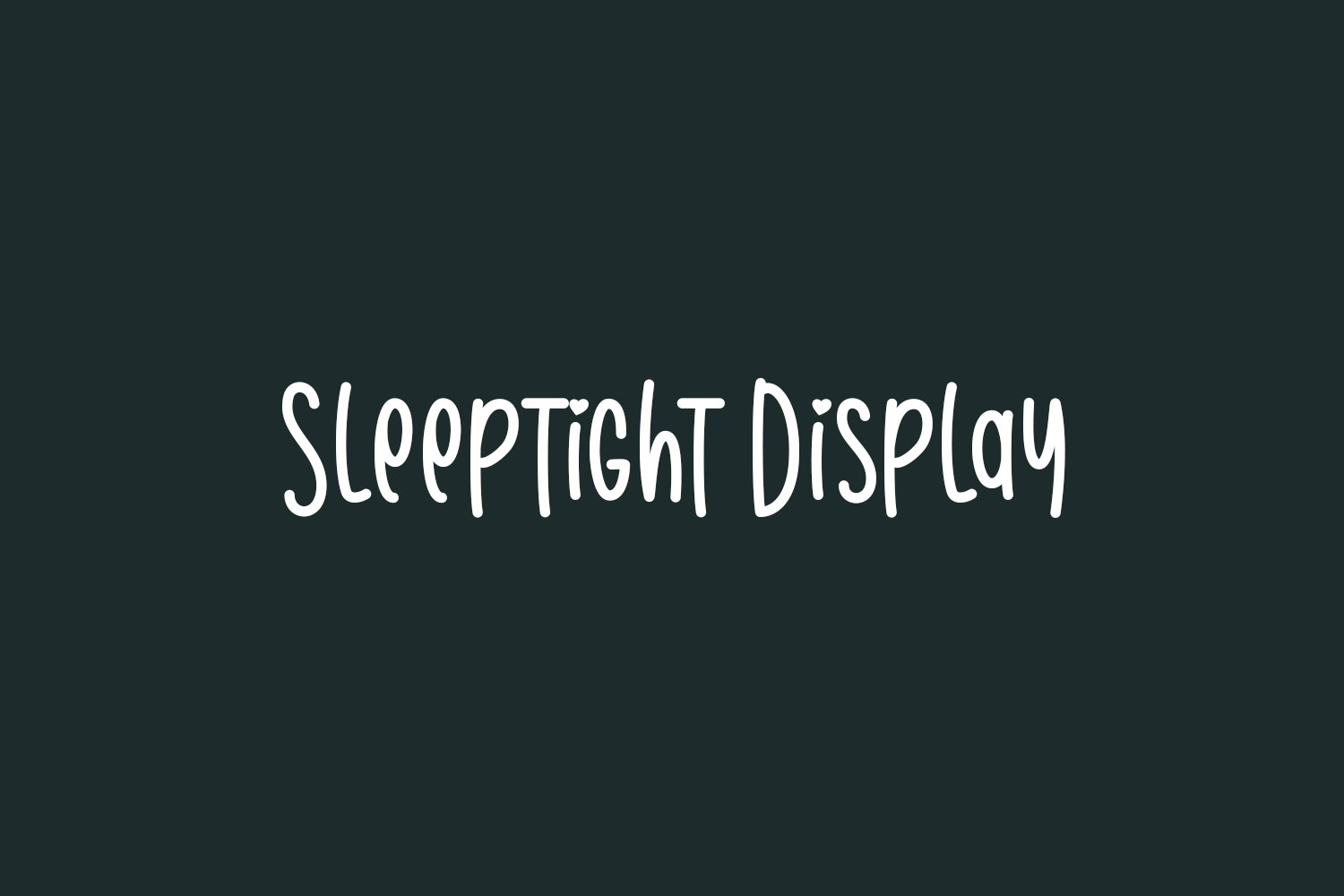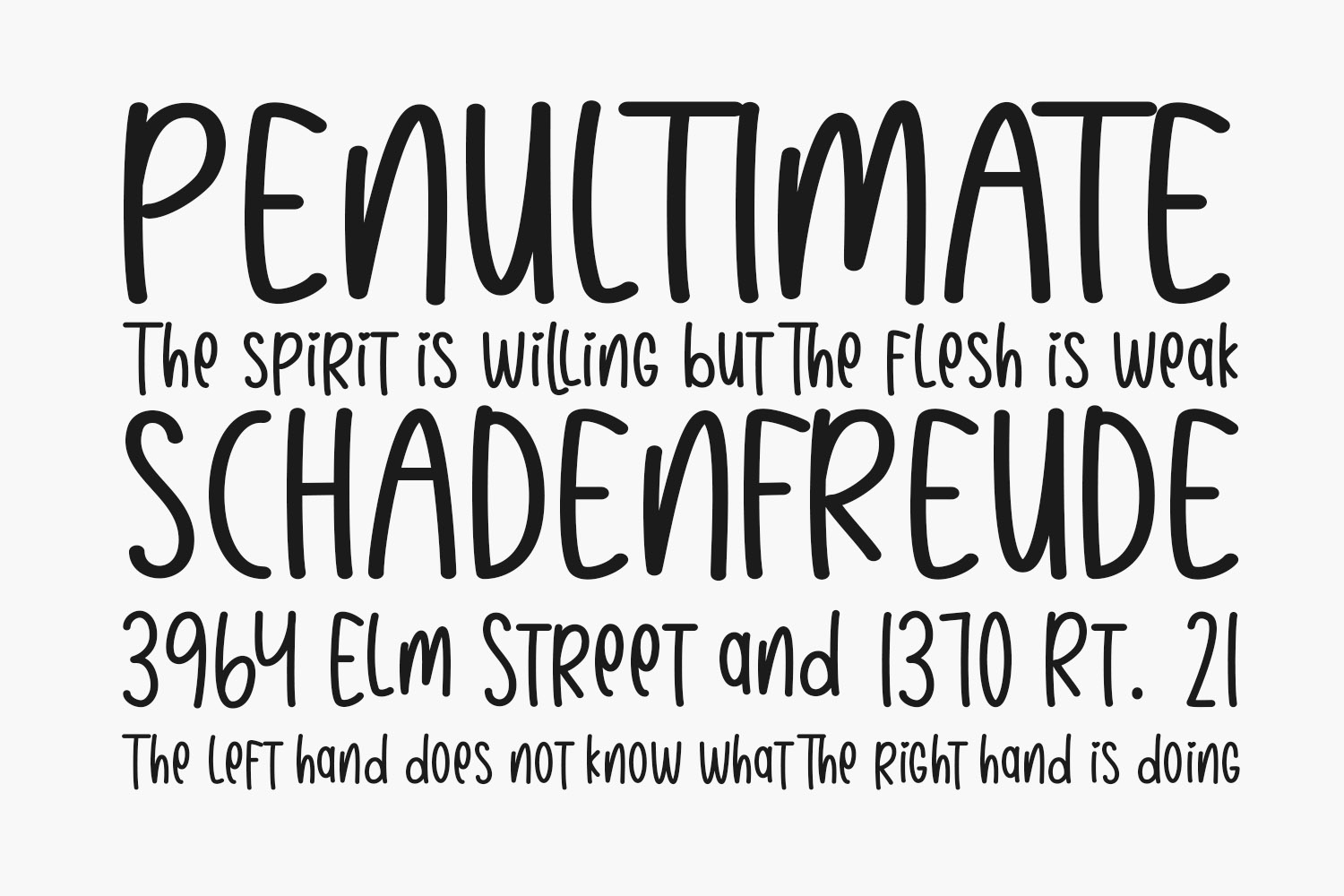
Sleeptight Display Free Font is a cute font. Incredibly versatile, this font fits a wide pool of designs, elevating them to the highest levels. Sleeptight Display Free Font was designed by Fillo Graphic and is free for personal use only. Please purchase the full version for commercial use.
Designed by Fillo Graphic